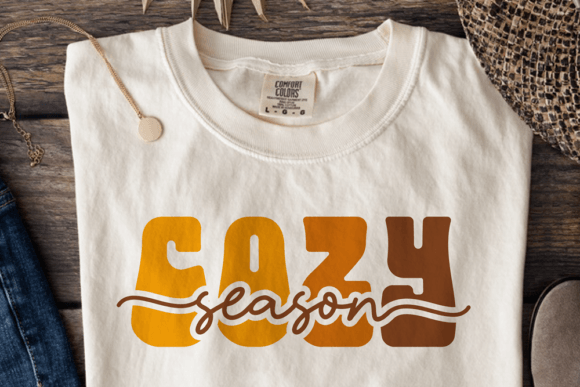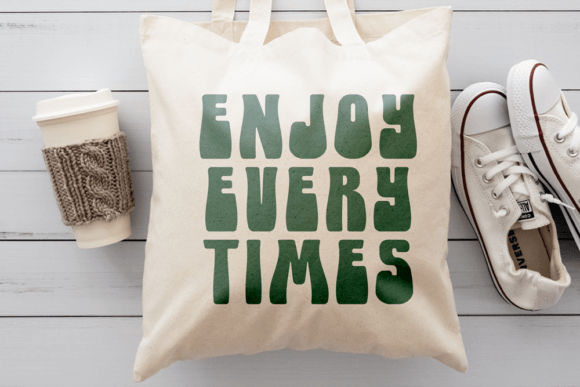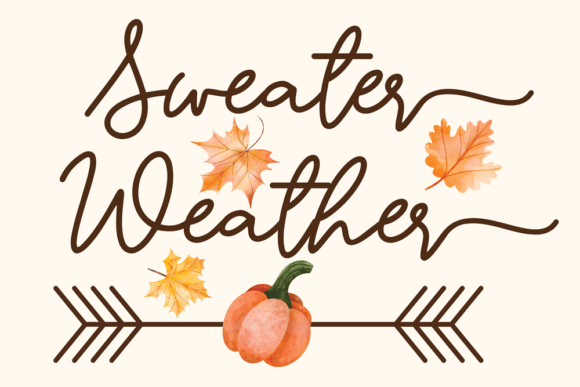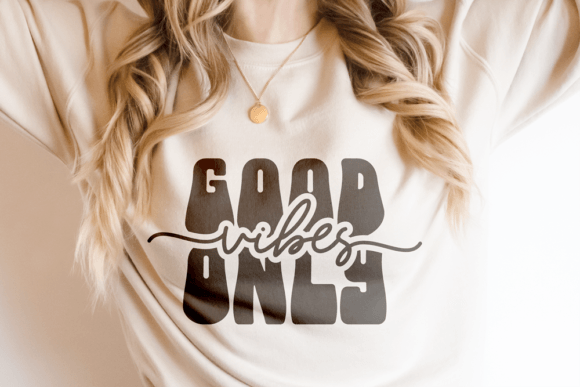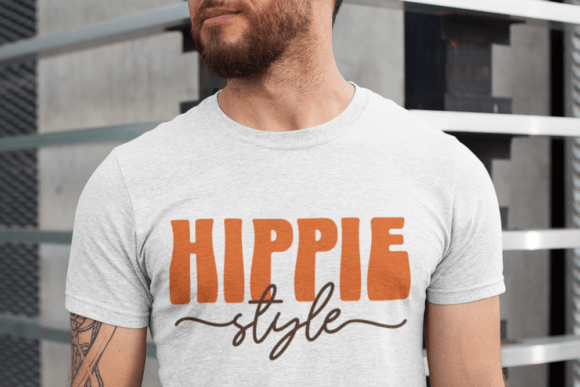
Fall into the Groove with Fall Vibes Font
I’ll never forget the design project that led me to discover the amazing Fall Vibes Groovy font. I was working on a retro-themed poster for a client’s music festival, and I was struggling to find the perfect font that captured the essence of the 1960s and 70s. The client wanted something that screamed “groovy” and “far out,” but I was coming up blank. That’s when I stumbled upon Fall Vibes Groovy, a cool retro duo font that instantly transported me back to the era of flower power and psychedelic rock.
As a designer, I’m always on the lookout for fonts that can help me create unique and eye-catching designs. Fall Vibes Groovy is definitely one of those fonts. Here’s what I love about it:
- ✨ Retro charm: This font has that unmistakable retro vibe that’s perfect for designs that require a groovy look.
- ✅ Versatility: Fall Vibes Groovy comes in two styles: display and monoline script. This makes it suitable for a wide range of design projects, from posters and flyers to logos and social media graphics.
- 💥 Impactful: This font is guaranteed to make an impact. Its bold and playful design ensures that your text will stand out from the crowd.
Of course, no font is perfect, and Fall Vibes Groovy has a few quirks:
- 🤔 Limited use cases: While Fall Vibes Groovy is amazing for retro-themed designs, it may not be the best choice for more formal or professional projects.
- ⚠️ Glyph limitations: Some users have reported that the font’s glyph library could be more extensive. However, the existing glyphs are still quite versatile and can be used to create interesting and dynamic text.
- Experiment with the font’s OpenType features, such as stylistic alternates and glyphs, to add more personality to your text.
According to the font’s creators, Fall Vibes Groovy was inspired by the retro aesthetic of the 1960s and 70s. They wanted to create a font that captured the essence of that era’s free-spirited, artistic vibe. The result is a font that’s perfect for designers who want to add a touch of nostalgia and playfulness to their designs.
| What is Fall Vibes Groovy? | Fall Vibes Groovy is a retro duo font (display and monoline script) that’s perfect for designs that require a groovy, retro look. |
| Is Fall Vibes Groovy suitable for body text? | While Fall Vibes Groovy is a beautiful font, it’s best suited for display text or headings. Its bold and playful design may not be suitable for body text. |